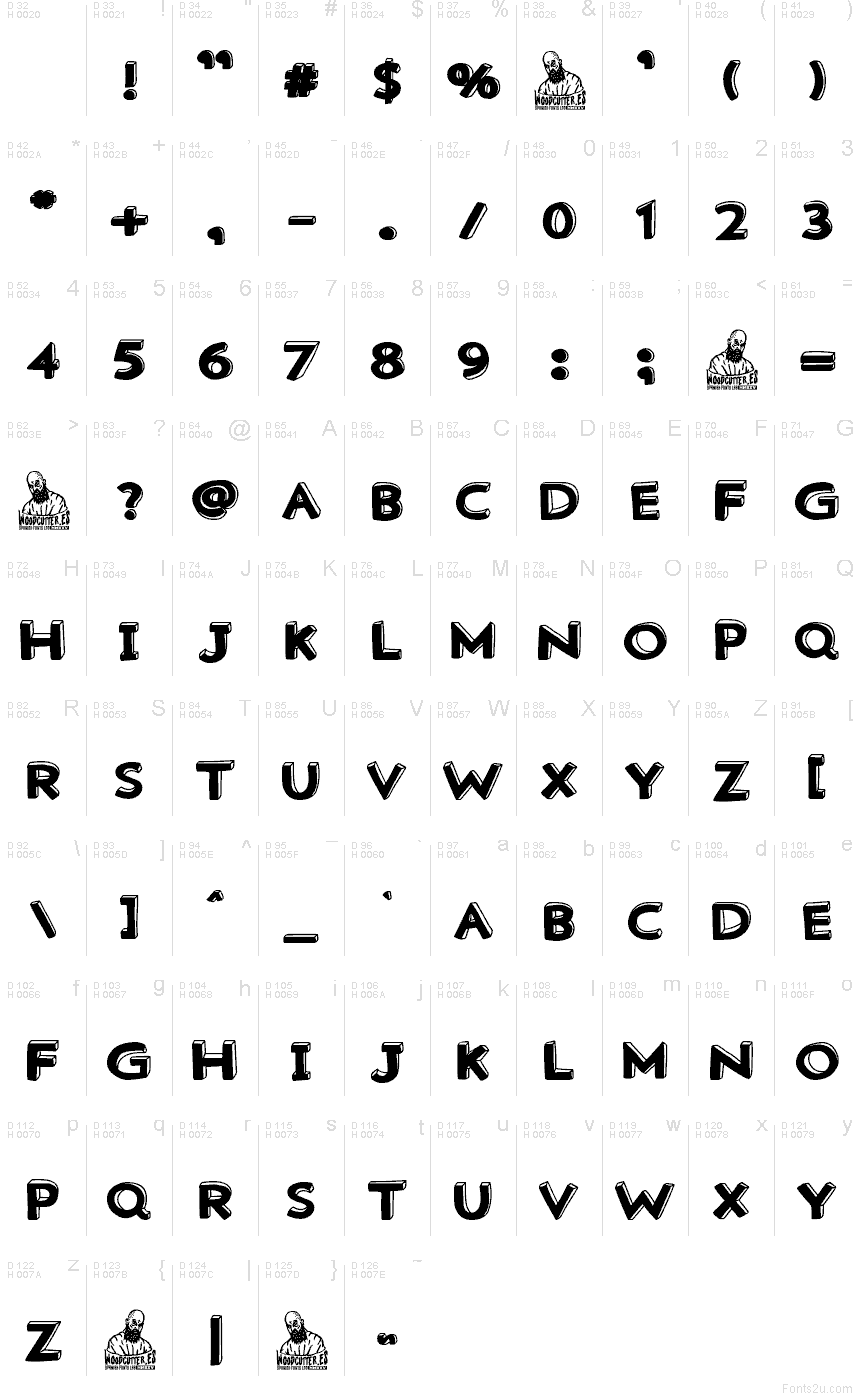
Licencia Vintage
Licencia Vintage font by Woodcutter is a free cartoon display typeface that looks like it’s been dipped in liquid chrome and pulled straight from a pulp comic cover. Thick, glossy strokes, dramatic inner curves, and subtle shadows give each letter a slick, sculpted feel, like black enamel lettering catching the light. The rhythm is tight and energetic, so words bunch together with a bold, shouty impact that’s hard to ignore.
Using Licencia Vintage font, your titles instantly feel loud, retro, and a bit mischievous—great for posters, comic or zine covers, YouTube thumbnails, arcade or retro-game logos, sticker packs, and bold packaging. This free font thrives at large sizes where its shiny, carved details can really pop; pair it with a simple geometric sans for body text to keep layouts readable while Licencia Vintage does all the screaming up top.